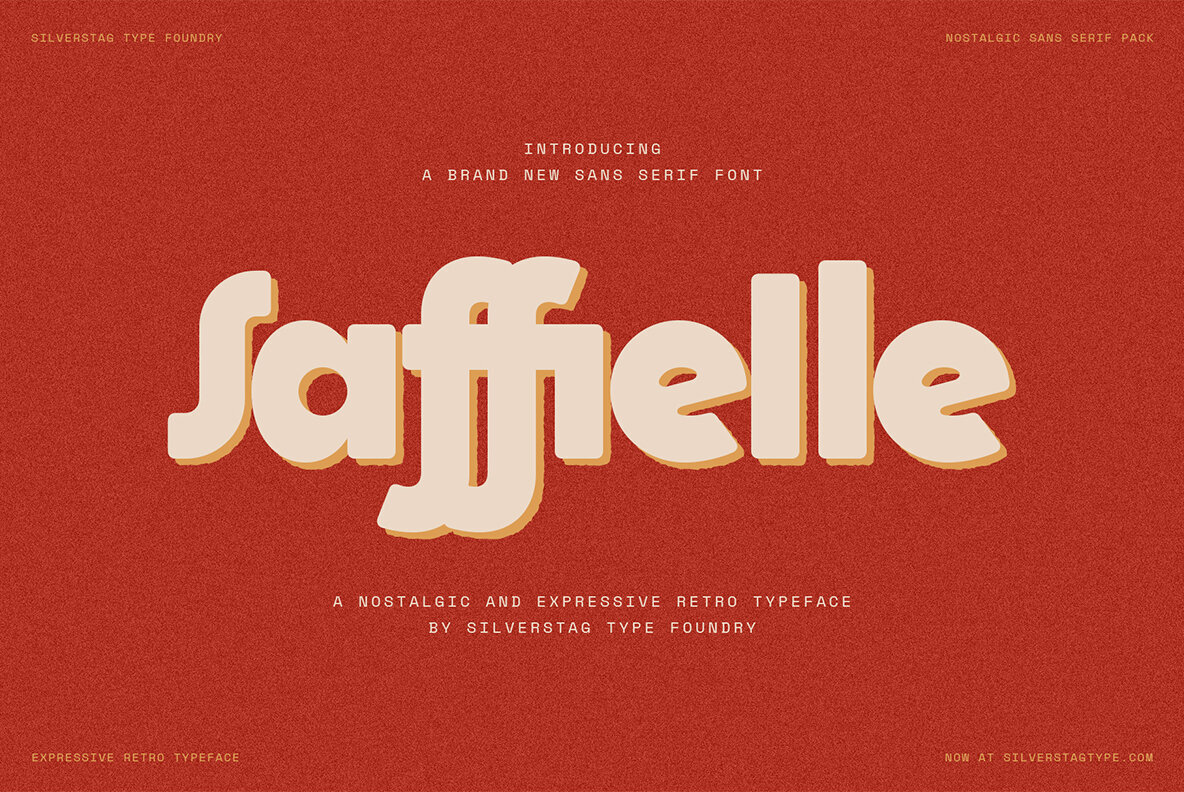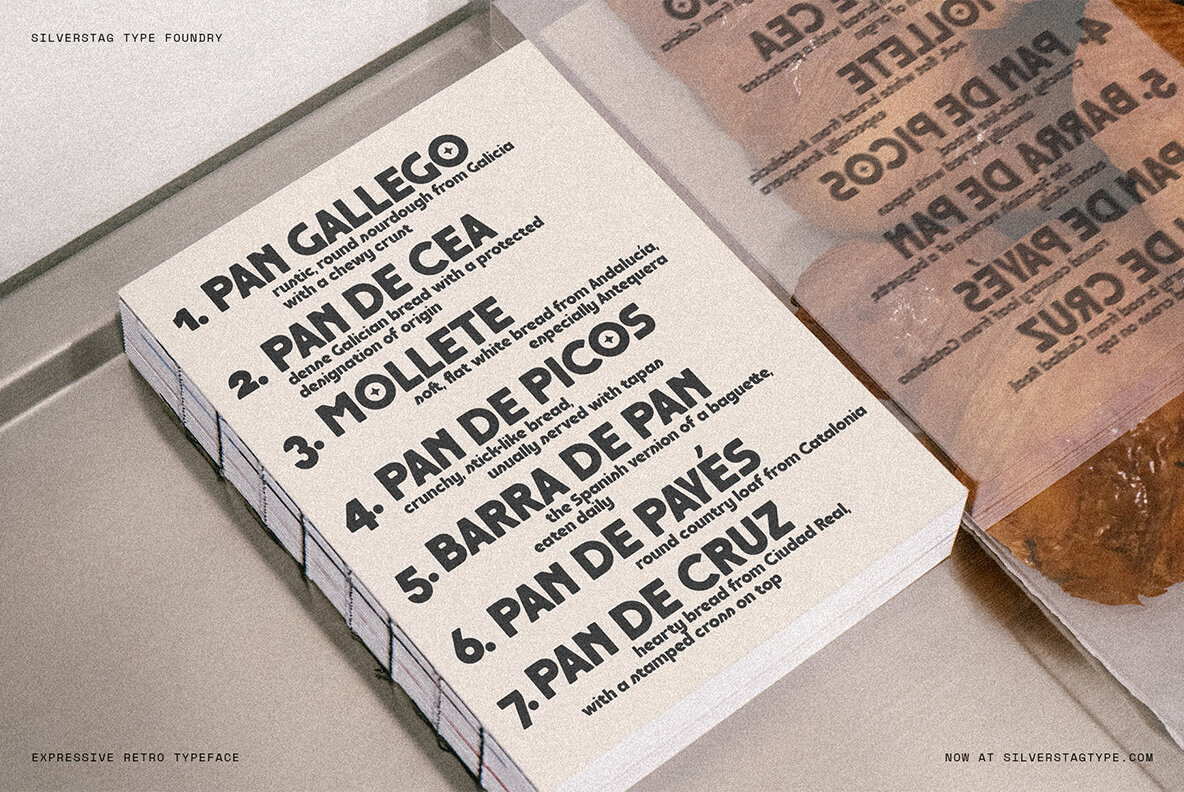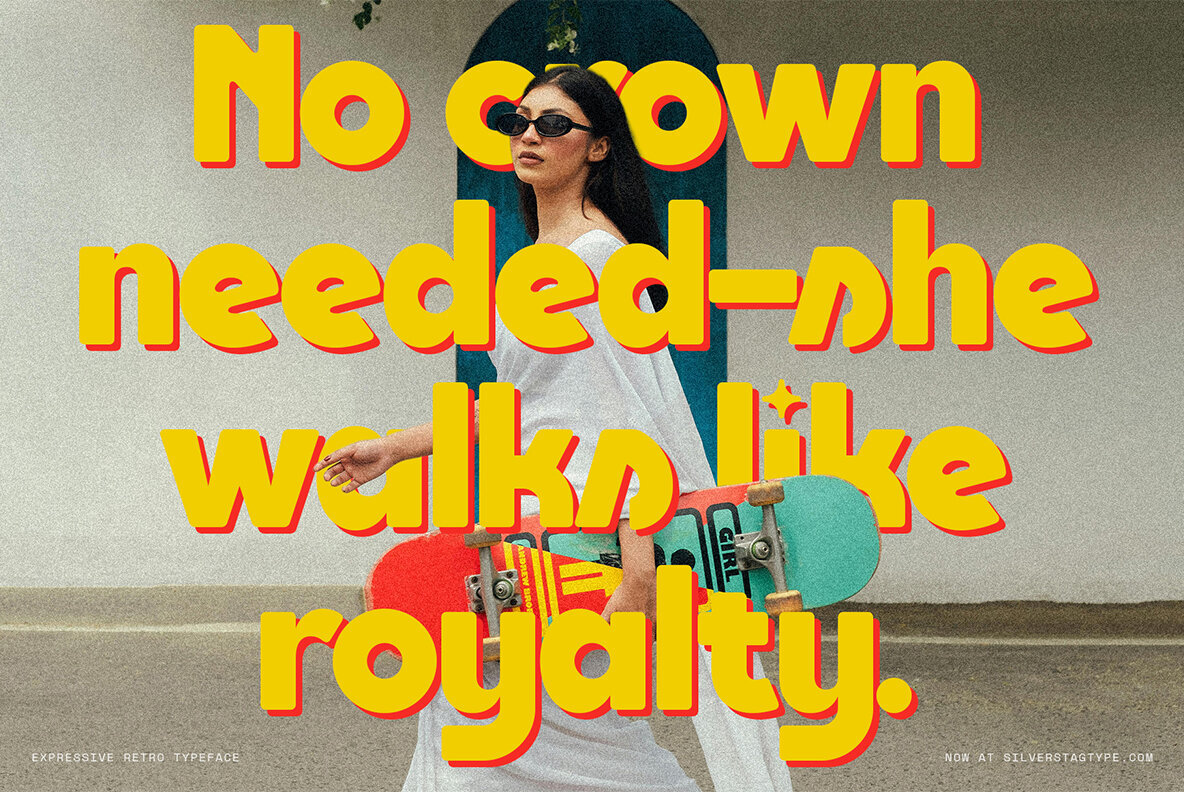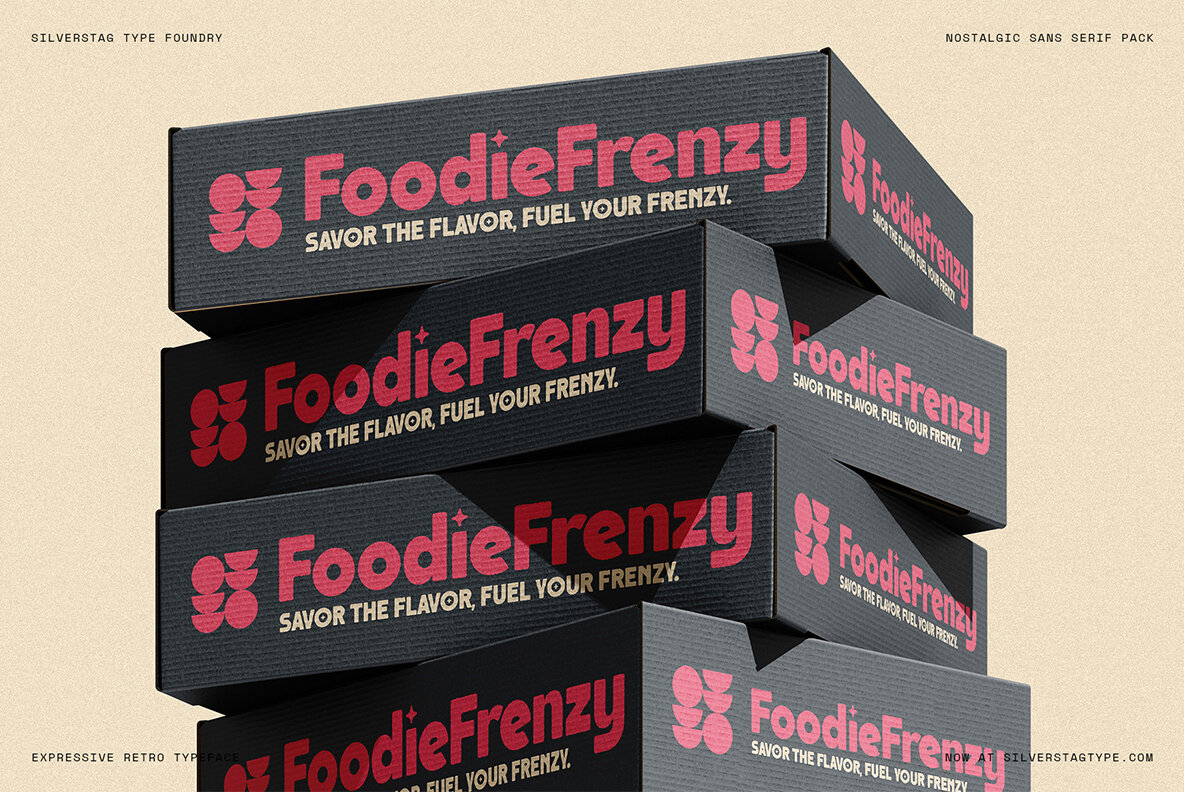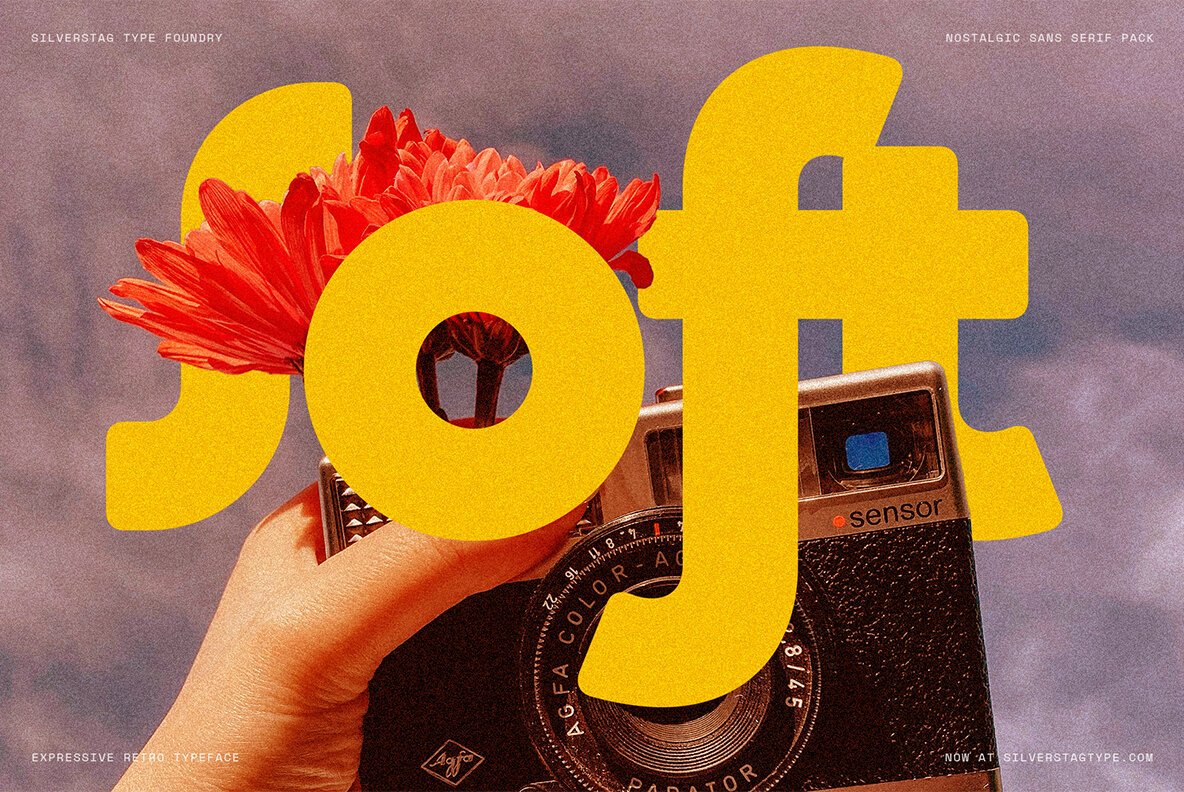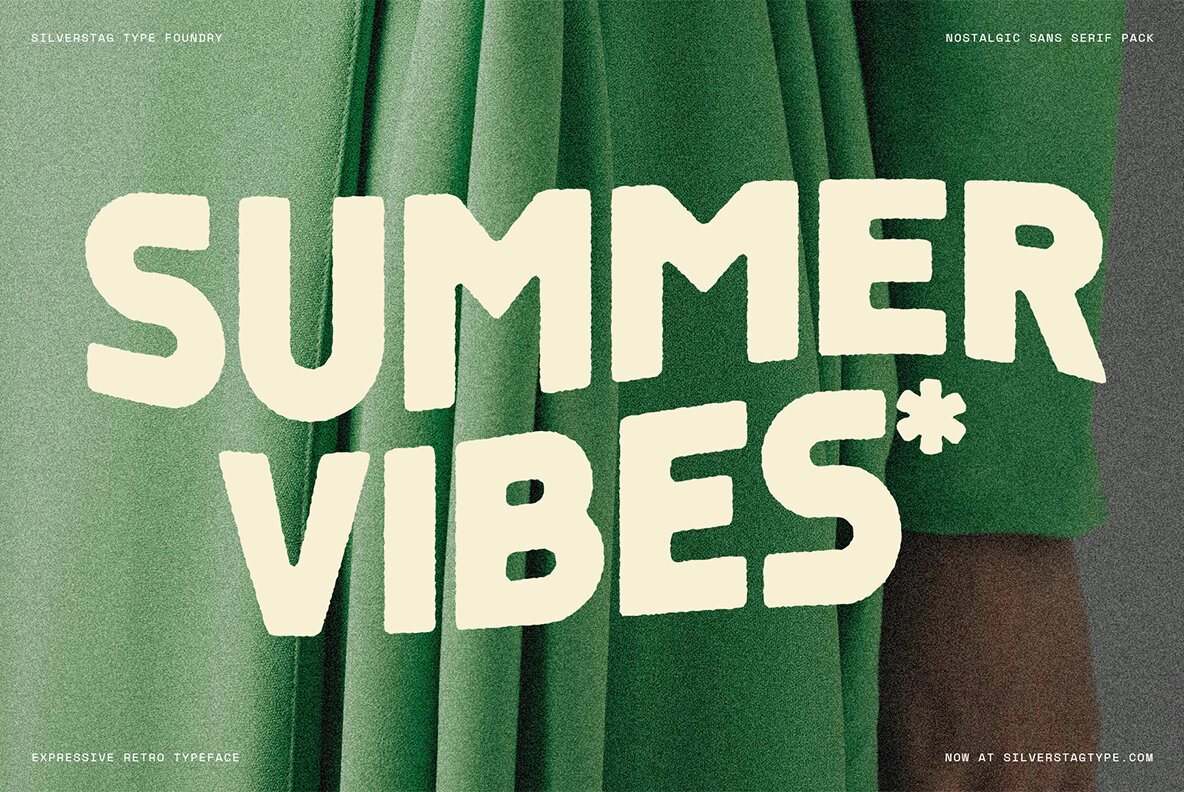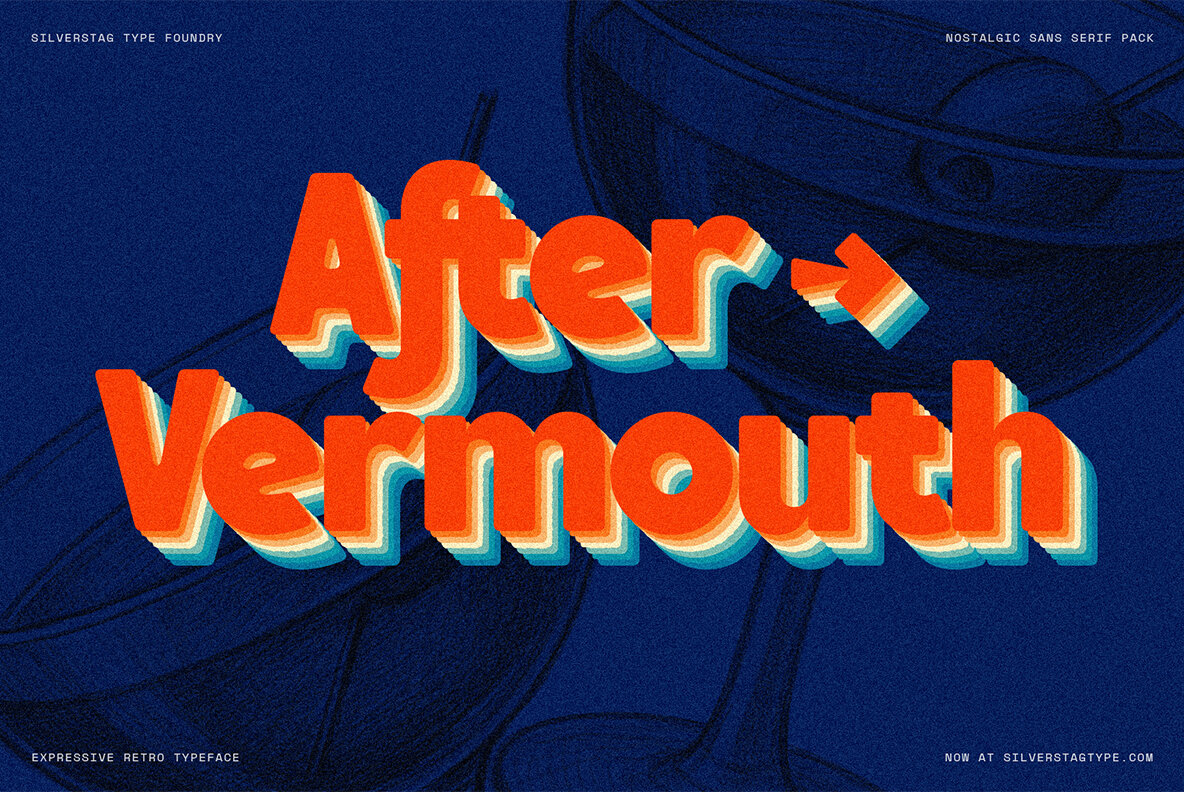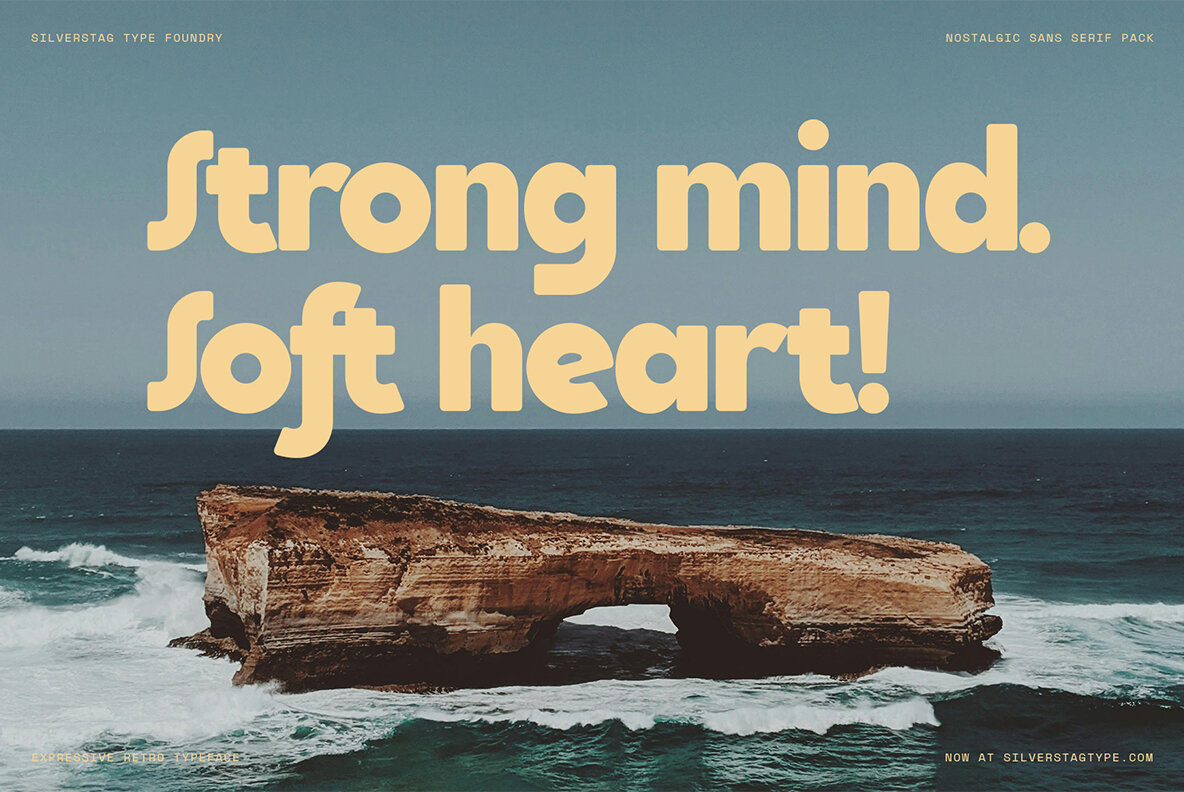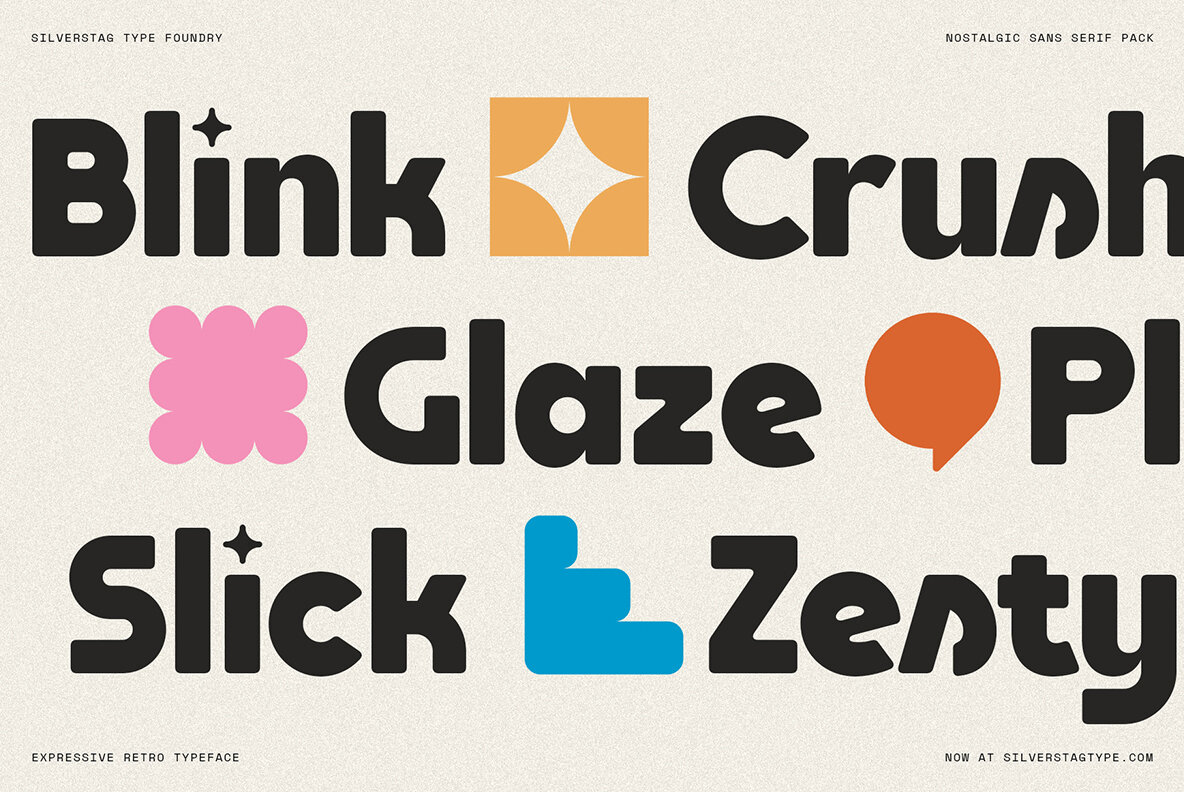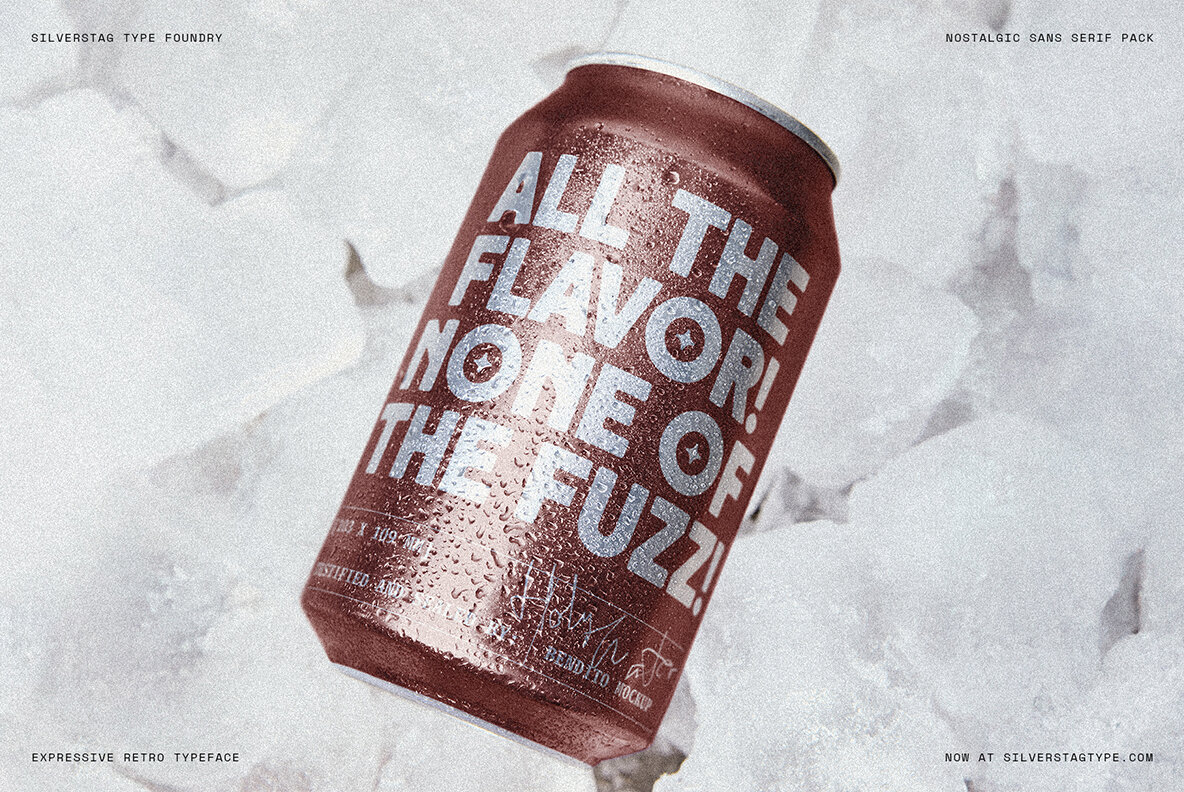
SLTF Saffielle Font
SLTF Saffielle Regular
SLTF Saffielle Vintage
SLTF Saffielle is an expressive sans serif typeface that masterfully combines retro aesthetics with modern versatility. Perfect for designers who cherish a nostalgic touch, Saffielle offers two remarkable variants: a sleek Regular version and a textured Vintage style accented by gentle rough edges. This typeface captivates with its chic charm, boasting creative ligatures, alternate letterforms, and comprehensive language support for over 100 languages. Ideal for branding, packaging, editorial headlines, posters, and any project that requires a touch of attitude and warmth, Saffielle ensures your design captures attention while remaining stylish and timeless. For even more design inspiration and resources, explore the Freebies Vault on SilverStag's website for access to over 15 free fonts, a Font Pairing Guide, and a special discount code to enhance your creative projects.SLTF Saffielle